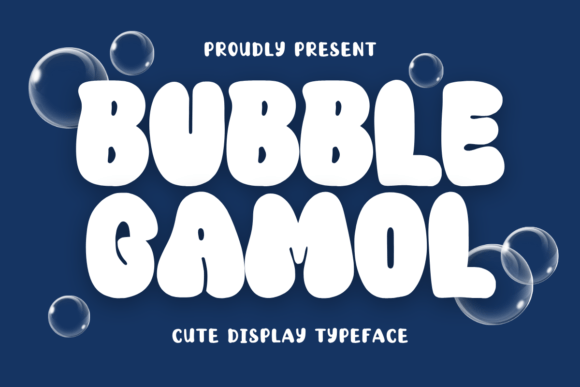
Unleash the playfulness and charm of Bubble Gamol, a display font that will transform your designs into a bubbly wonderland! Its plump, rounded letters exude a cheerful and inviting vibe, perfect for capturing attention and leaving a lasting impression.
Dive into a world of endless possibilities with Bubble Gamol. Its versatility knows no bounds, whether it's adorning eye-catching posters, creating delightful mugs, or adding a touch of whimsy to home décor. The font's playful nature makes it an ideal choice for quotes, posters, pillows, and more, adding a cheerful spark to any project.
Let Bubble Gamol's bubbly personality infuse your designs with joy and captivation. Experience the magic of fonts that transcend mere aesthetics and become a catalyst for creative expression. Download Bubble Gamol today and embark on a delightful typographic adventure that will leave your audience grinning from ear to ear!